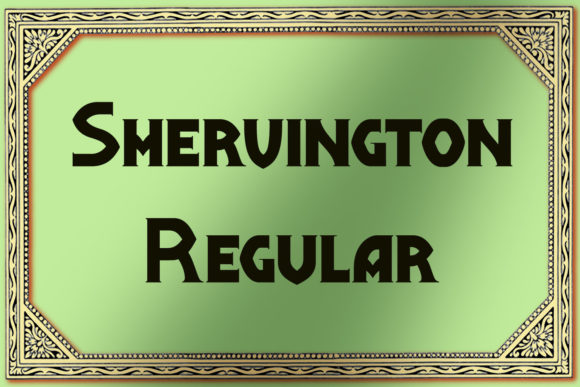
**Immerse Yourself in the Allure of Shervington: A Font That Embodies Artistic Mastery**
Unleash your creativity with Shervington, an exceptional display font that emanates elegance and sophistication. Meticulously crafted by the renowned Greater Albion Design, this font family empowers you to transform your designs into captivating masterpieces.
**A Symphony of Style for Every Occasion**
Whether you're designing posters that demand attention, expressing gratitude with heartfelt thank-you cards, or crafting inspiring quotes that resonate deeply, Shervington effortlessly elevates your words. Its versatility extends to greeting cards that convey warmth and joy, logos that exude professionalism, and business cards that leave a lasting impression.
**Unleash Your Inner Artist**
As a designer, you understand the power of typography to evoke emotions and convey messages. Shervington grants you the freedom to express your artistic vision with unparalleled clarity and impact. Its every stroke is a testament to the artistry and meticulous attention to detail that define Greater Albion Design.
**A Font That Speaks to Your Soul**
Shervington is more than just a font; it's a gateway to self-expression. Infuse your designs with a touch of your own personality, whether you're creating designs for personal projects or collaborating with clients. Let Shervington become your creative ally, enabling you to translate your thoughts and emotions into breathtaking visual creations.
**A Legacy of Excellence**
Greater Albion Design has established a reputation for excellence in the world of typography. Their passion for creating fonts that inspire and empower designers shines through in every character of Shervington. By choosing this font, you not only enhance your designs but also become a part of a legacy of creativity and artistic excellence.